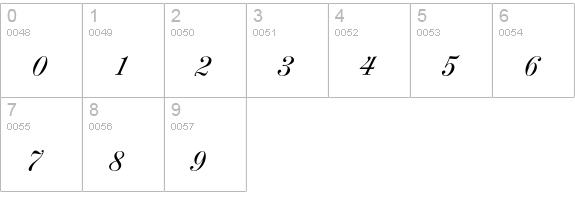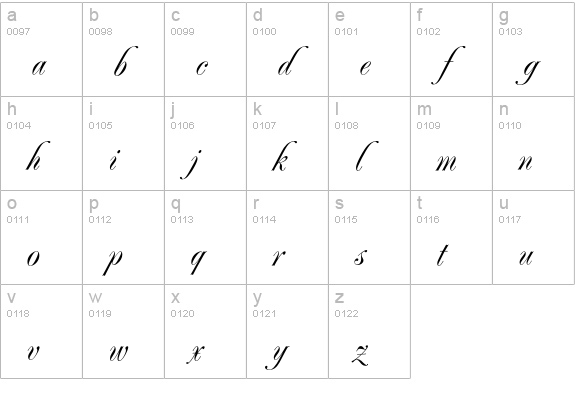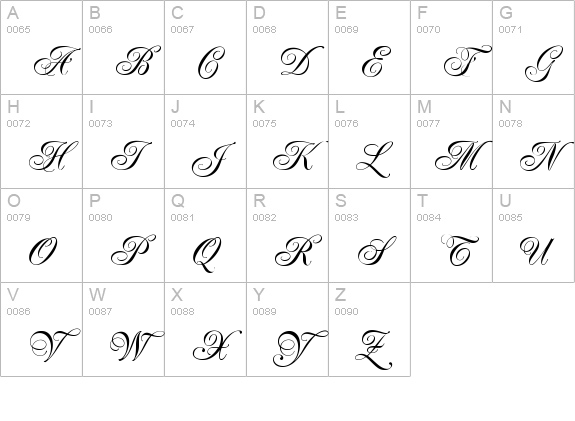
Poppl-Residenz R Font Details
Poppl-Residenz R font is a timeless and elegant typeface that exudes sophistication and class. With its delicate serifs and graceful curves, this font is perfect for adding a touch of refinement to any design project. The Poppl-Residenz R font is versatile and can be used for a wide range of applications, from branding to editorial design. What's even better is that this exquisite font is available for free download at FontsMarket.com. Whether you're working on a personal project or a professional assignment, the Poppl-Residenz R font will elevate your work with its distinctive charm and high-end appeal. Download this font today and bring a touch of luxury to your designs.